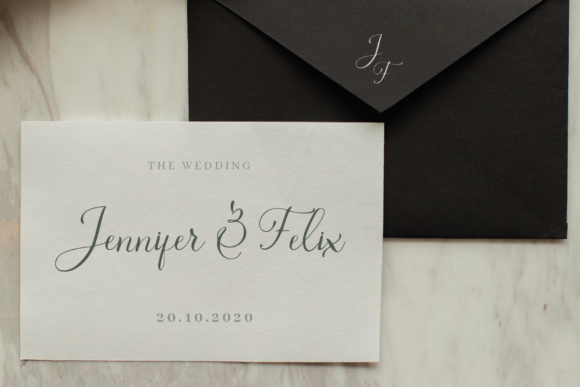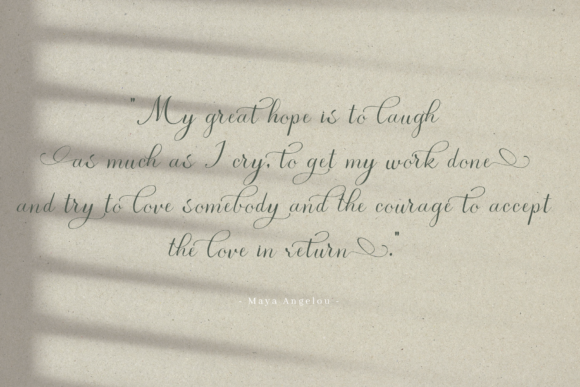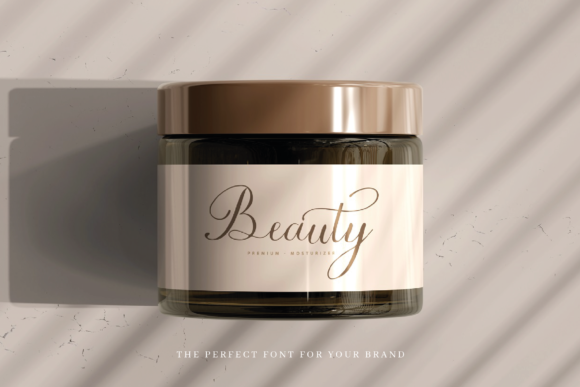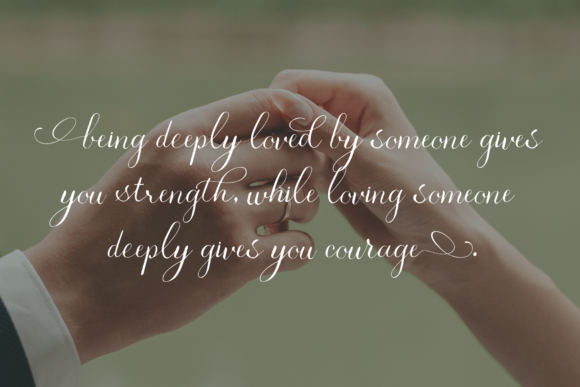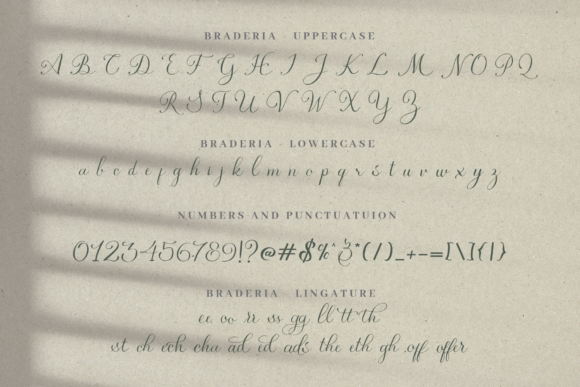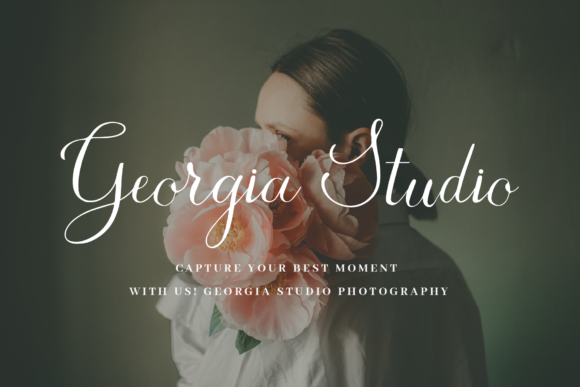
Unleashing the Charm of Braderia Script Font
Have you ever stumbled upon a font that makes you feel like you’re writing a love letter to the world? For many designers, that moment comes when they discover the perfect script font that elevates their work to new heights. For us, that moment was when we fell in love with the Braderia Script Font.
This elegant and charming font is a game-changer for any design project. From wedding invitations to business cards, Braderia Script Font adds a touch of sophistication and whimsy that’s hard to resist. With its PUA encoded features, designers can easily access all the glyphs and swashes they need to create stunning designs. Whether you’re a seasoned pro or just starting out, this font is a valuable addition to any design arsenal.
Braderia Script Font Key Features
- Font Type: Script Font, ideal for creative and artistic designs
- Font Size: Available in 5 different font sizes, ranging from 12pt to 48pt, allowing for flexibility in design
- Resolution: Optimized for high-resolution displays, suitable for print and digital media
- Unique Characteristics: Handwritten and cursive styles, with subtle flair and fluidity, adding a personal touch to designs
Braderia Script Font Review
First off, I’d like to say that I’m really impressed with the personal touch Braderia Script Font brings to any design project ✨. The handwritten feel and subtle flair make it perfect for titles, headings, and quotes. The font is highly legible, even at smaller sizes, which is a big plus.
Another thing I love about Braderia Script Font is its versatility ✨. It works well in both modern and traditional designs, and the wide range of language support makes it a great choice for international projects. I’ve also found it to be very easy to use ✨, with a clear and concise character map.
However, there are a few limitations I’ve encountered ⚠️. The font is not ideal for body text, as it can be a bit too ornate and distracting. Additionally, the font doesn’t come with a lot of alternatives or variations ⚠️, which can limit its use in certain situations.
Overall, I’d say Braderia Script Font is a solid choice for any designer looking to add a touch of elegance and sophistication to their projects. While it may not be perfect for every situation, its unique charm and versatility make it a great addition to any design arsenal.
- Works well for: Titles, headings, quotes, modern and traditional designs
- Not ideal for: Body text, projects requiring a lot of alternatives or variations
Tips for Getting the Most Out of Braderia Script Font
Use Braderia Script Font for titles, headings, and quotes to add a touch of elegance and sophistication.
Combine it with other fonts to create a unique and visually appealing design.
Experiment with different font sizes and styles to create a balanced and harmonious design.
Braderia Script Font is ideal for:
Branding and marketing materials
Personalized gifts and stationery
Photography and creative projects